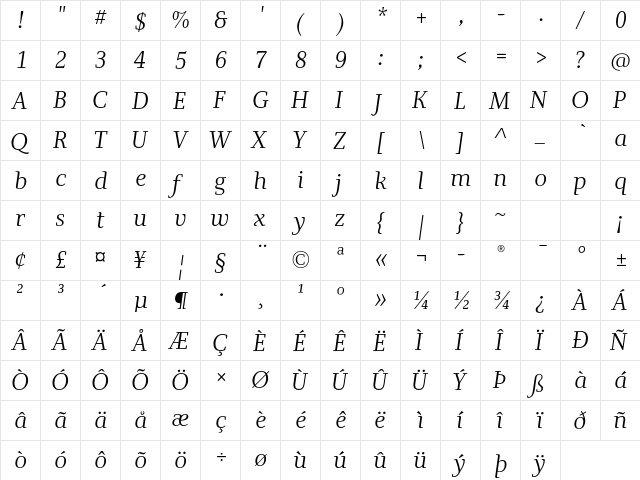
Alfon Italic
| Foundry | Terminal Design Inc. |
| Designer | James Montalbano |
Design Context for Alfon Typeface
Alfon offers clean, dependable letterforms without strong stylistic allegiance, making it a practical choice for designers who need flexibility. Its italic angle brings a sense of urgency and motion to the letterforms.
Pro Tip: Use Alfon for emphasis, pull quotes, and subheadings where its slanted energy can add rhythm to the layout.